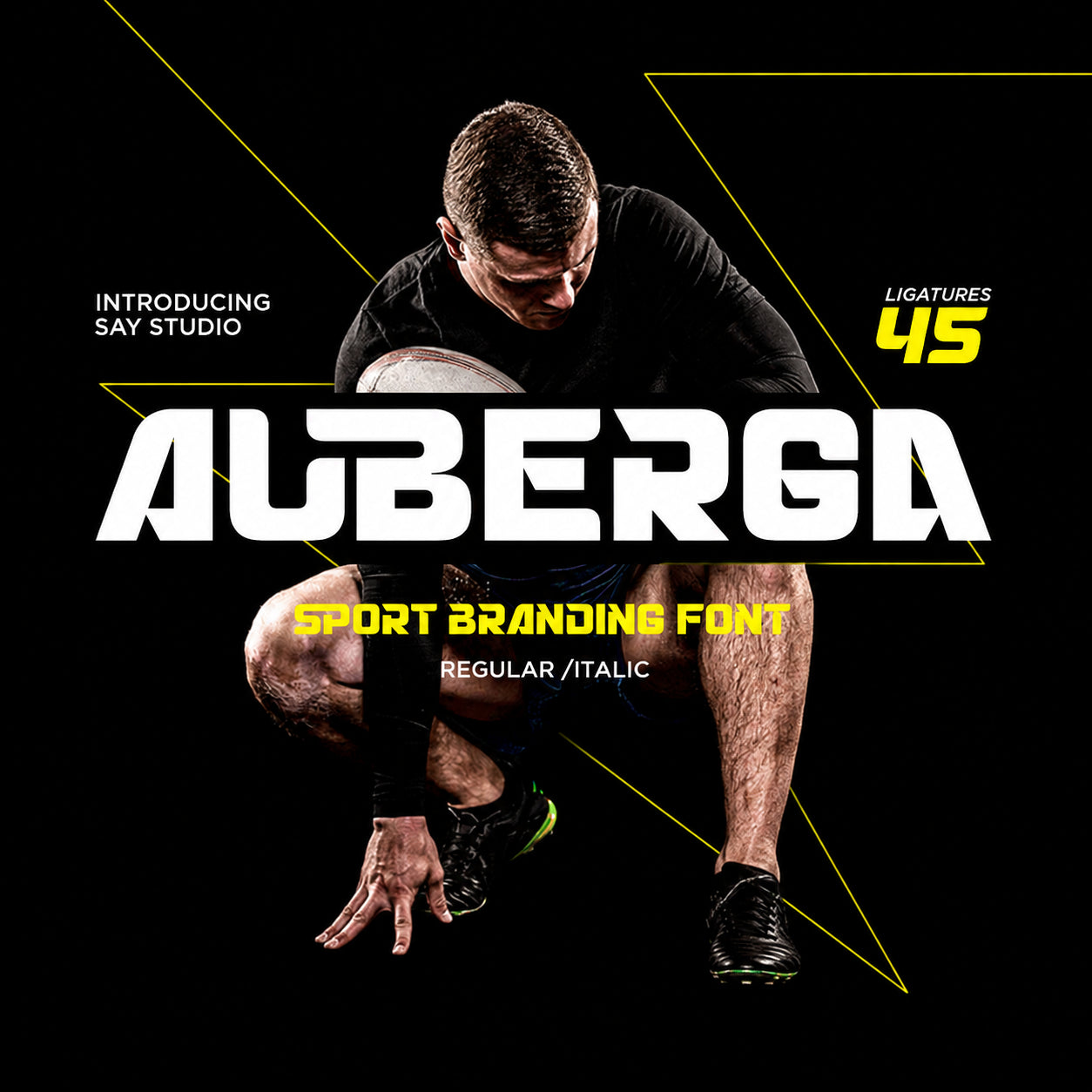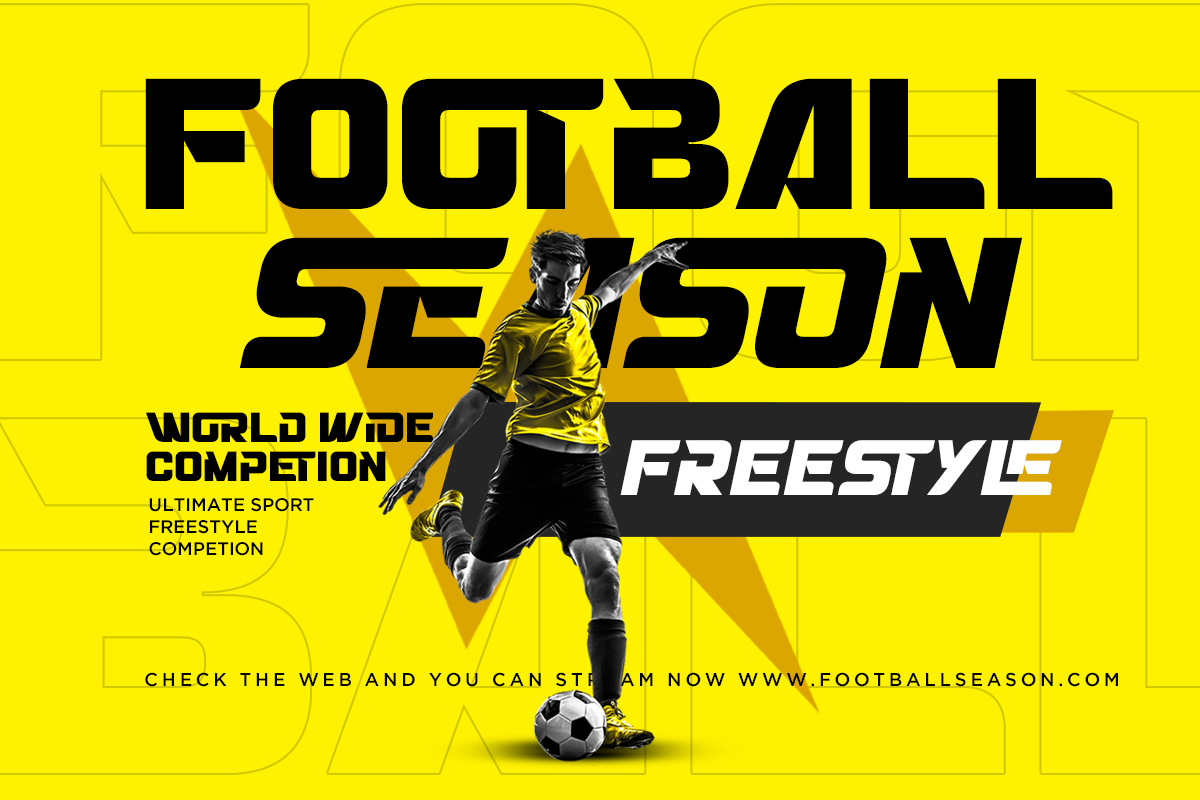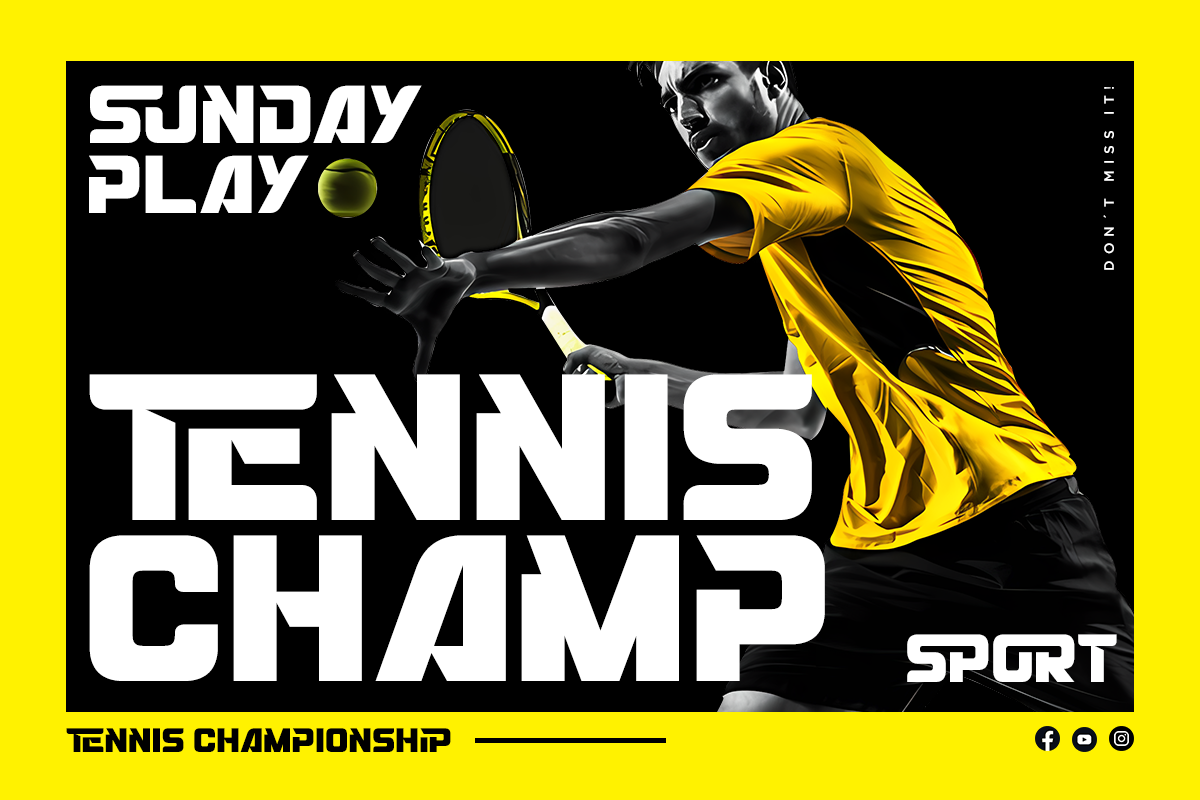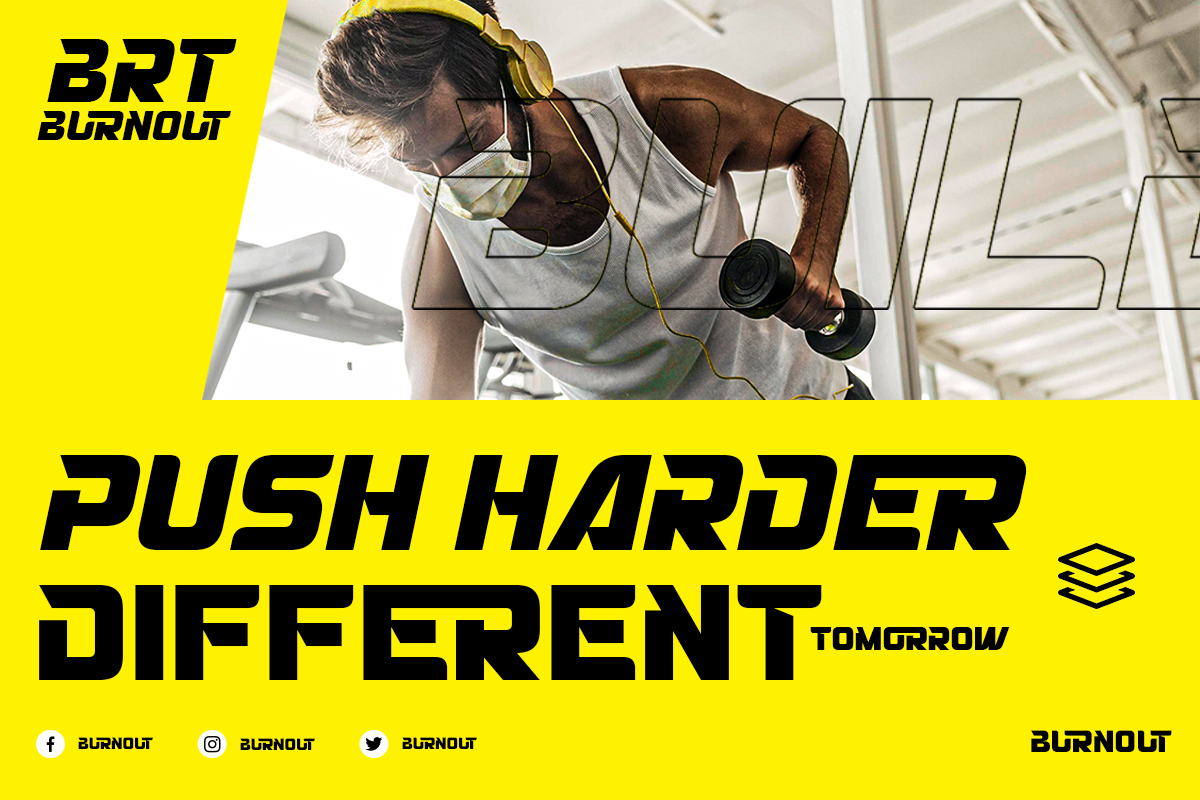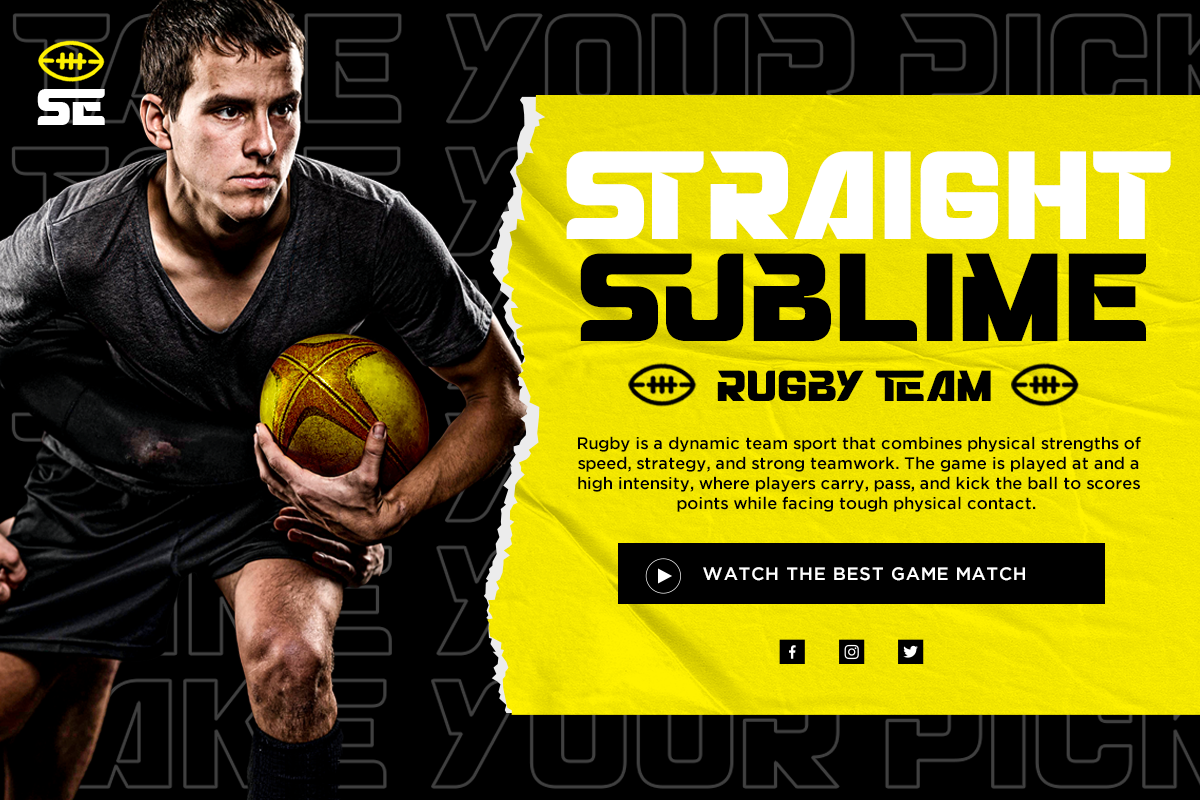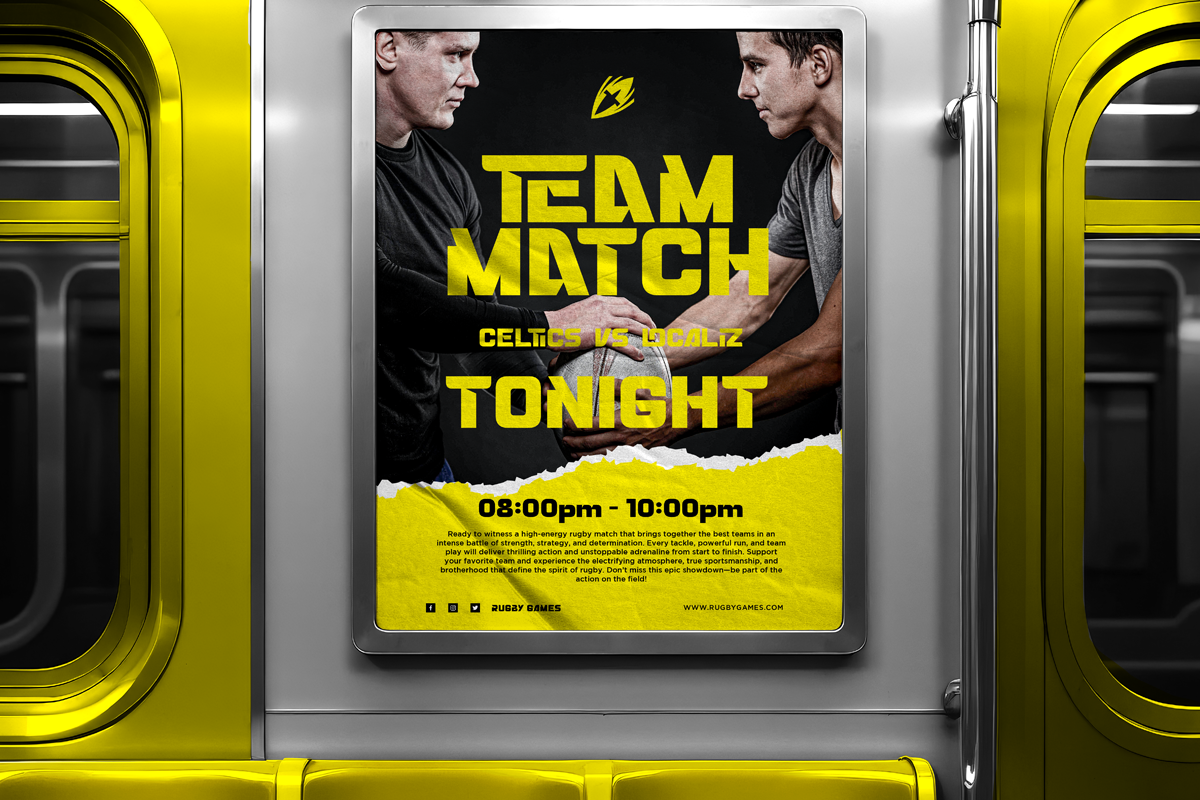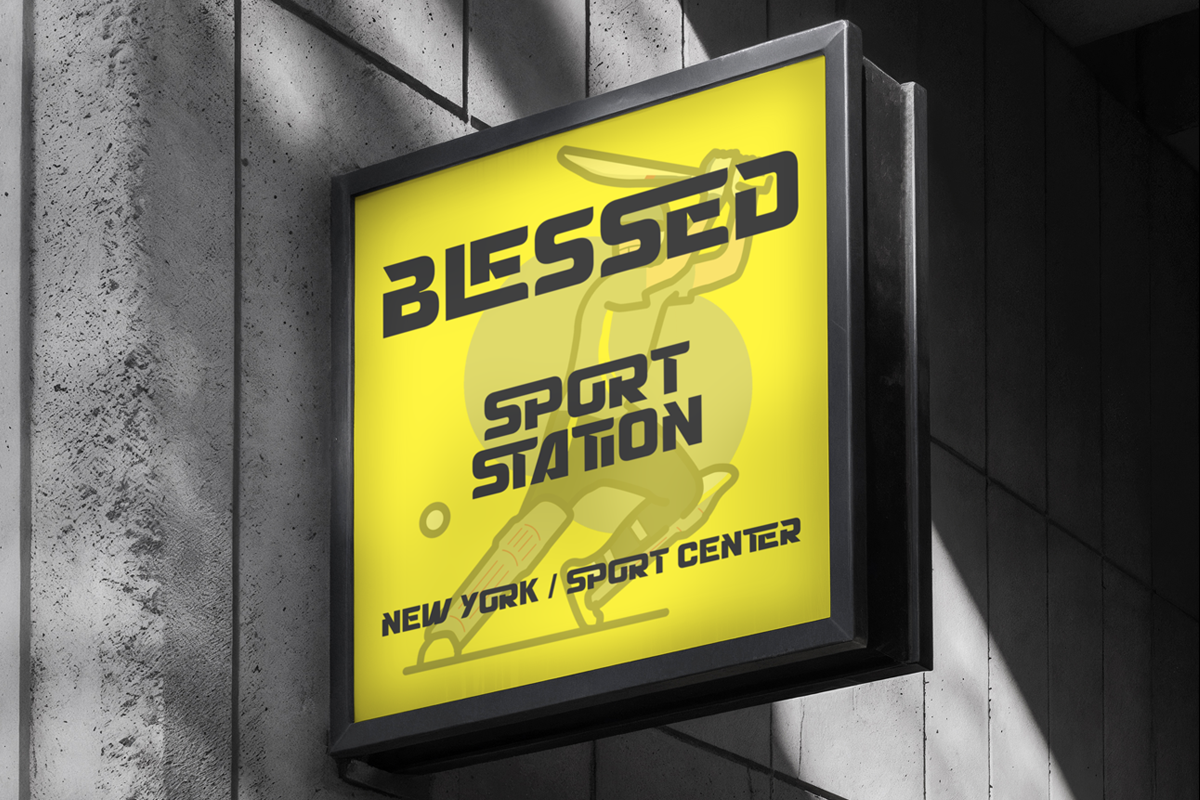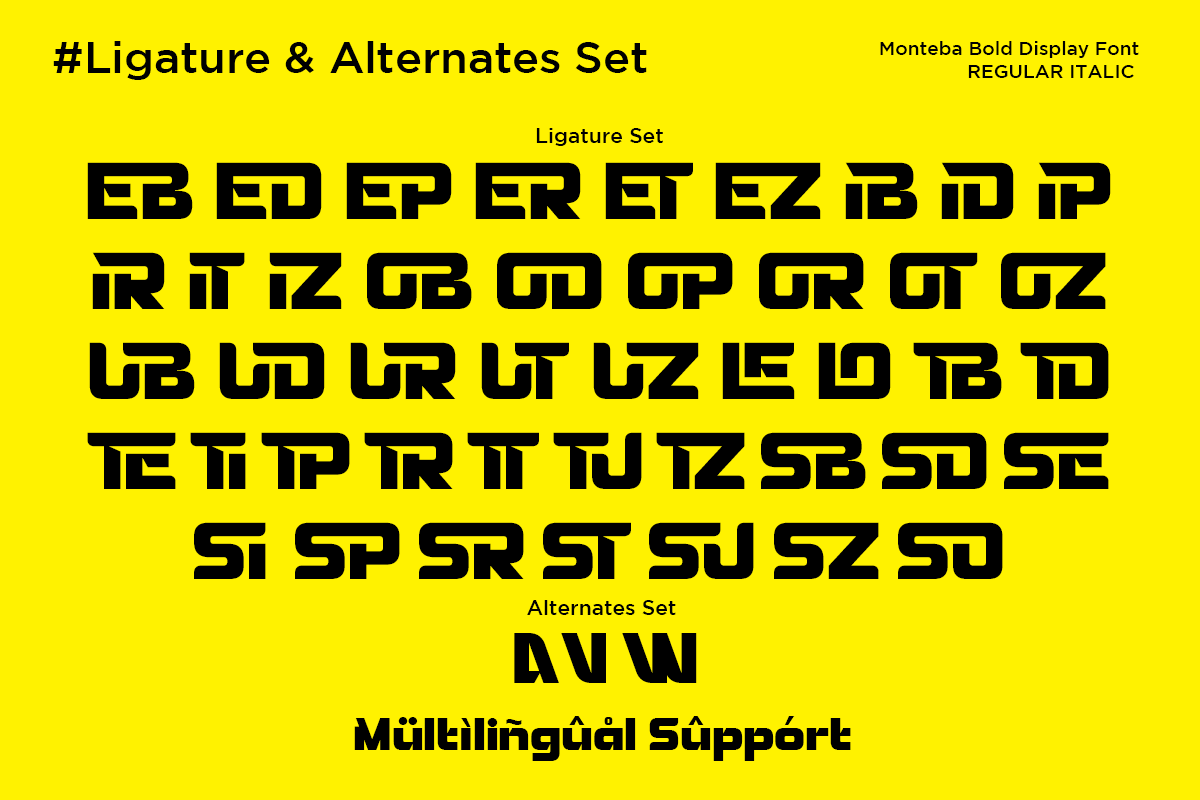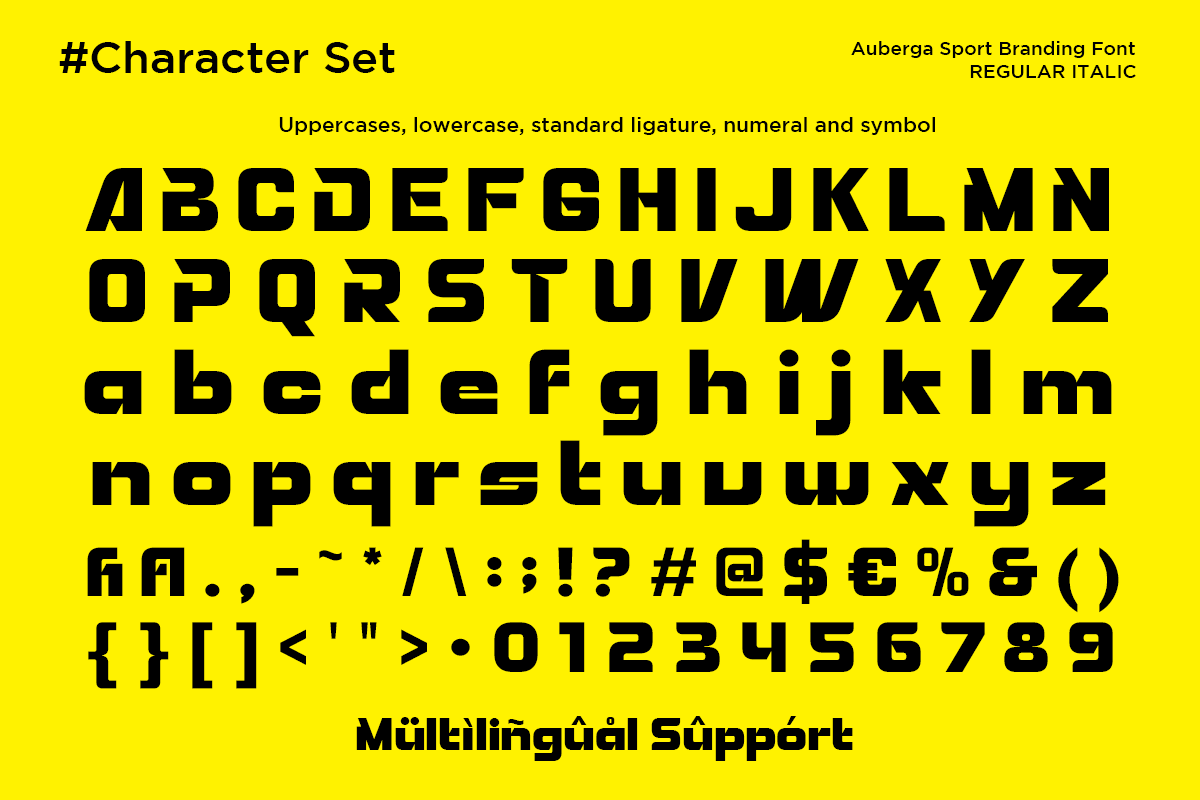
Auberga - Sports Branding Font
Auberga is a powerful sport branding font designed for high-impact visuals. This bold and dynamic typeface features strong letterforms and sharp details, making it perfect for sports branding, athletic logos, headlines, posters, esports designs, gym apparel, and energetic typography projects. Built to communicate strength, speed, and confidence, this font delivers a modern and competitive look for standout designs.
• Regular and Italic
• Stylistic Ligatures
• Special Alternates
• Uppercase and Lowercase
• Number, Symbol, and Punctuation
Auberga is a bold sports branding font with strong letterforms and sharp details, available in Regular and Italic styles. It includes stylistic ligatures, special alternates, uppercase and lowercase characters, numbers, symbols, punctuation, and multilingual support, provided in OTF, TTF, and WOFF formats.